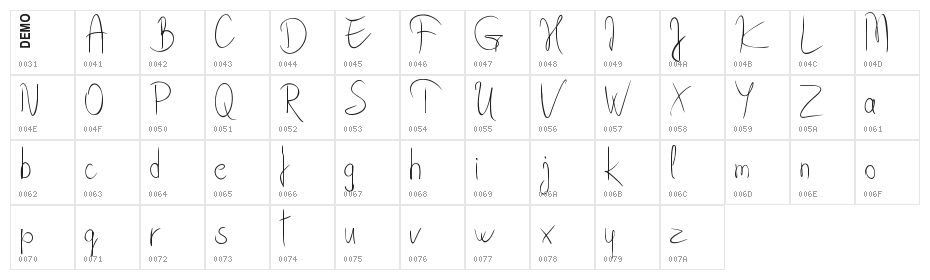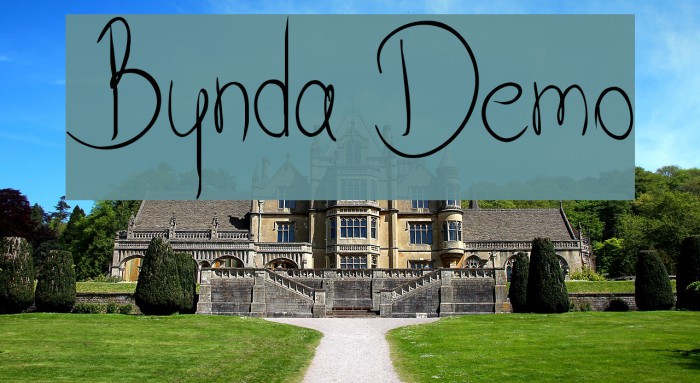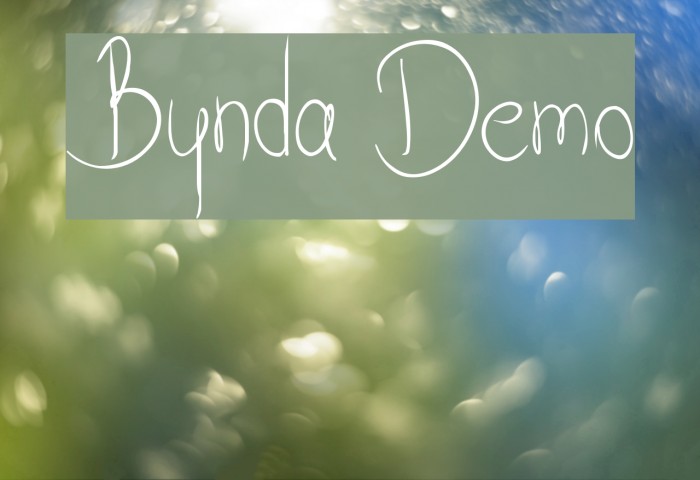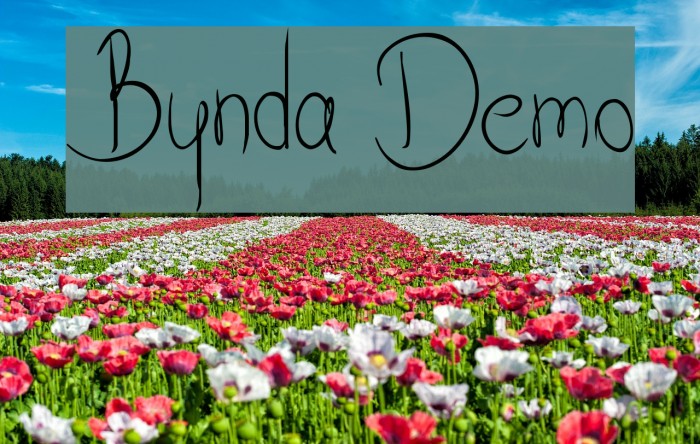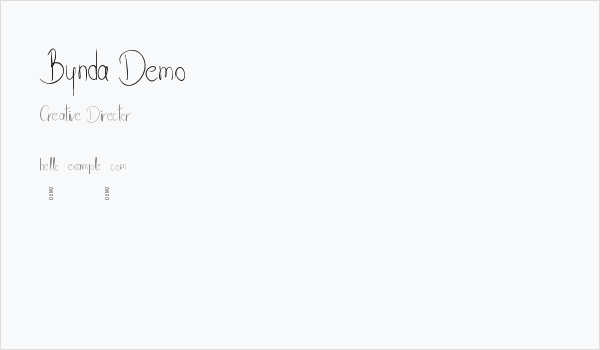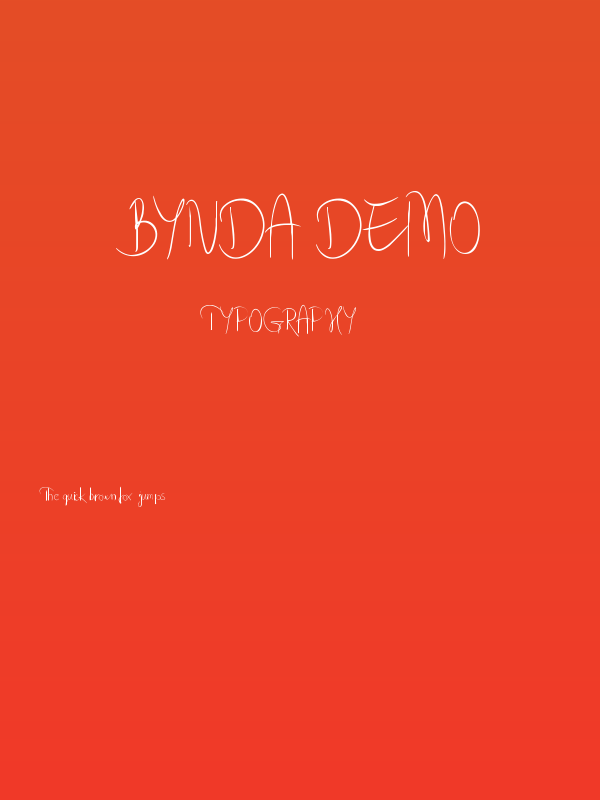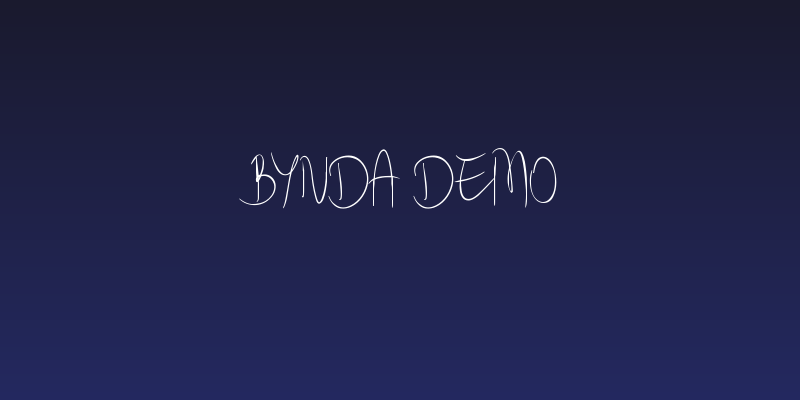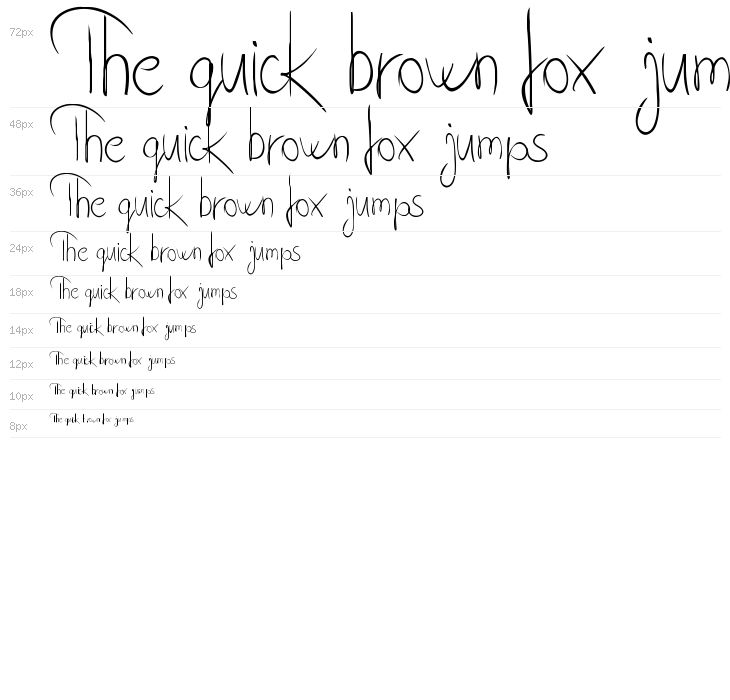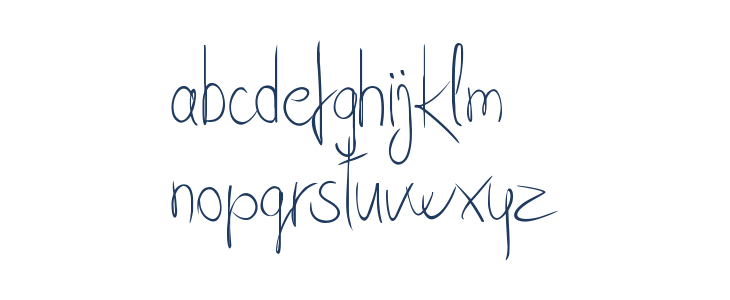
Bynda Demo Font
Bynda Demo Description
This font features a unique and artistic handwritten style with elongated and flowing letterforms. The characters have a whimsical and playful appearance, characterized by their thin strokes and varying line thickness. The uppercase letters are tall and narrow, while the lowercase letters maintain a consistent height, creating a harmonious balance. The font includes a full set of uppercase and lowercase letters, numbers, and a selection of special characters. Its distinct style makes it suitable for creative and expressive design projects.
Use CaseLogos, Headlines, Artistic designs
Proposed ProjectsIdeal for creative projects such as invitations, greeting cards, branding, and artistic posters.